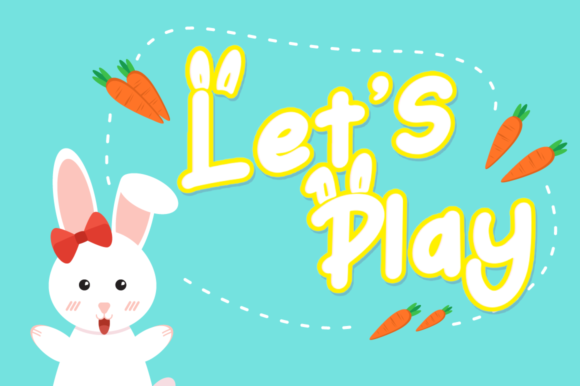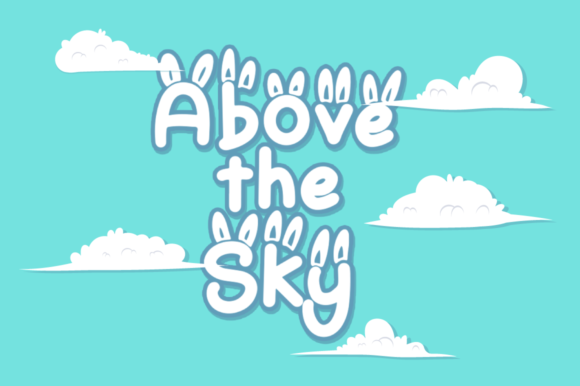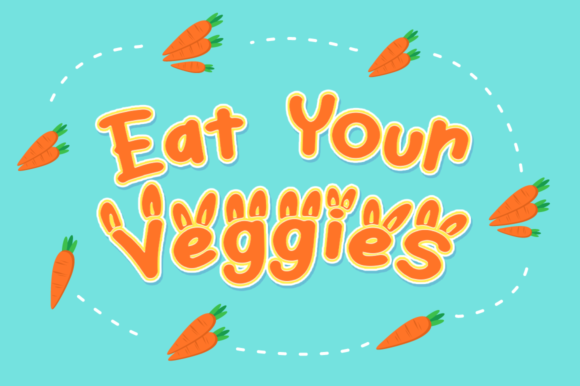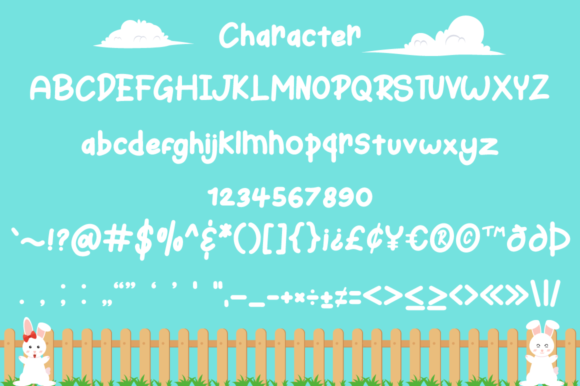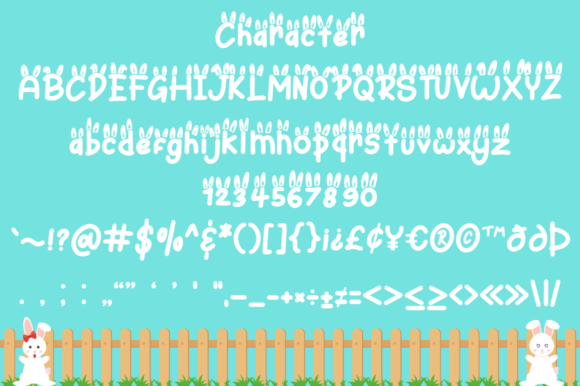
Bunny Hopper Font: The Ultimate Playful Font for Your Design Needs
Are you tired of using the same old fonts for your designs? Look no further! Introducing the Bunny Hopper Font, a playful, fun, and fresh font that’s sure to spark joy for any new design ideas. This adorable font comes in two lovely styles – Regular and Bunny Ear, making it perfect for designers and crafters looking to add a touch of whimsy to their work.
What Makes Bunny Hopper Font So Special?
The Bunny Hopper Font is a unique and eye-catching font that’s designed to bring a smile to your face. Its playful and fun design makes it perfect for a variety of design projects, from children’s party invitations to social media graphics, and even craft projects like DIY signs and banners. The font’s fresh and modern look ensures that your designs will stand out from the crowd and leave a lasting impression.
The Two Styles of Bunny Hopper Font
The Bunny Hopper Font comes in two delightful styles: Regular and Bunny Ear. The Regular style is perfect for everyday designs, while the Bunny Ear style adds a cute and quirky touch to your text. The Bunny Ear style features adorable bunny ears on top of each letter, making it ideal for designs that require a bit more personality. Whether you’re creating a design for a children’s party or a craft project, these two styles offer endless possibilities.
The Bunny Hopper Font is a dream come true for designers and crafters. Its playful and fun design makes it perfect for a variety of projects, including:
- Children’s party invitations and decorations
- DIY signs and banners
- Craft projects, such as knitting or sewing patterns
- Packaging design for kids’ products
Why Choose Bunny Hopper Font?
So, why choose the Bunny Hopper Font for your design needs? Here are just a few reasons:
- Unique and eye-catching design: The Bunny Hopper Font is unlike any other font out there. Its playful and fun design is sure to grab attention and leave a lasting impression.
- Versatile: The font comes in two styles, making it perfect for a variety of design projects.
- High-quality: The font is designed with high-quality and clarity in mind, ensuring that your designs look professional and polished.
Tips for Using Bunny Hopper Font
Here are a few tips for using the Bunny Hopper Font in your designs:
- Pair with other playful fonts: The Bunny Hopper Font pairs perfectly with other playful fonts, such as Comic Sans or Pacifico.
- Use for headings and titles: The font’s bold and playful design makes it perfect for headings and titles.
- Add a pop of color: The Bunny Hopper Font looks great with bright and bold colors, so don’t be afraid to add a pop of color to your design.